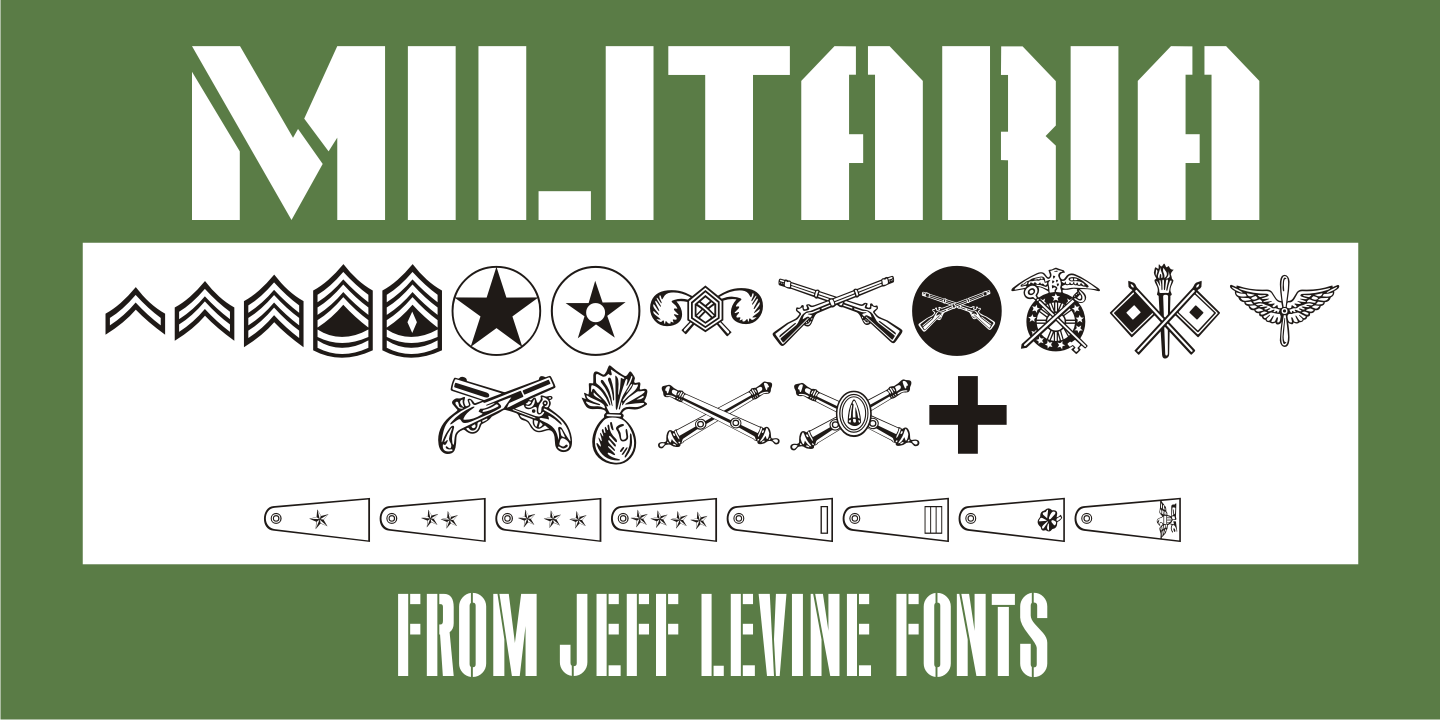
Militaria
Militaria JNL is a collection of various military insignias modeled from vintage printer's blocks.
While this in no way represents all ranks, specialties and branches of the military, it is still a nice little package for themed projects.